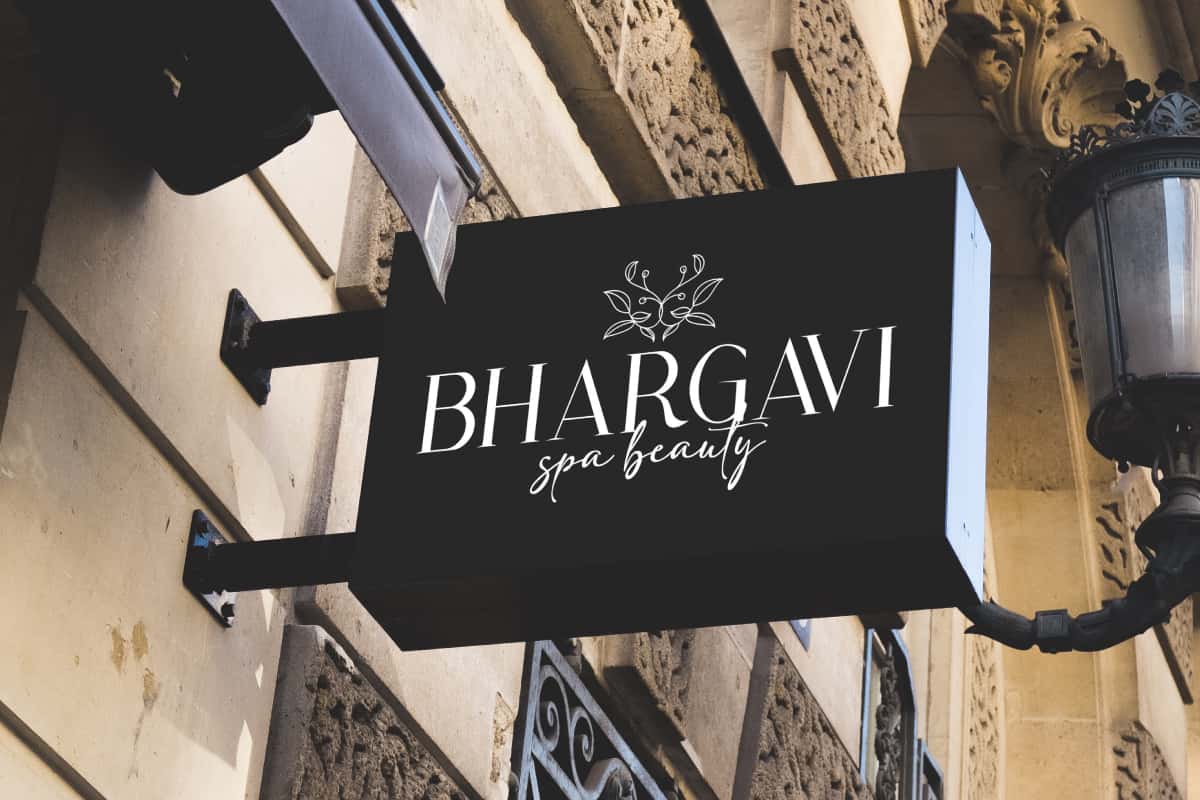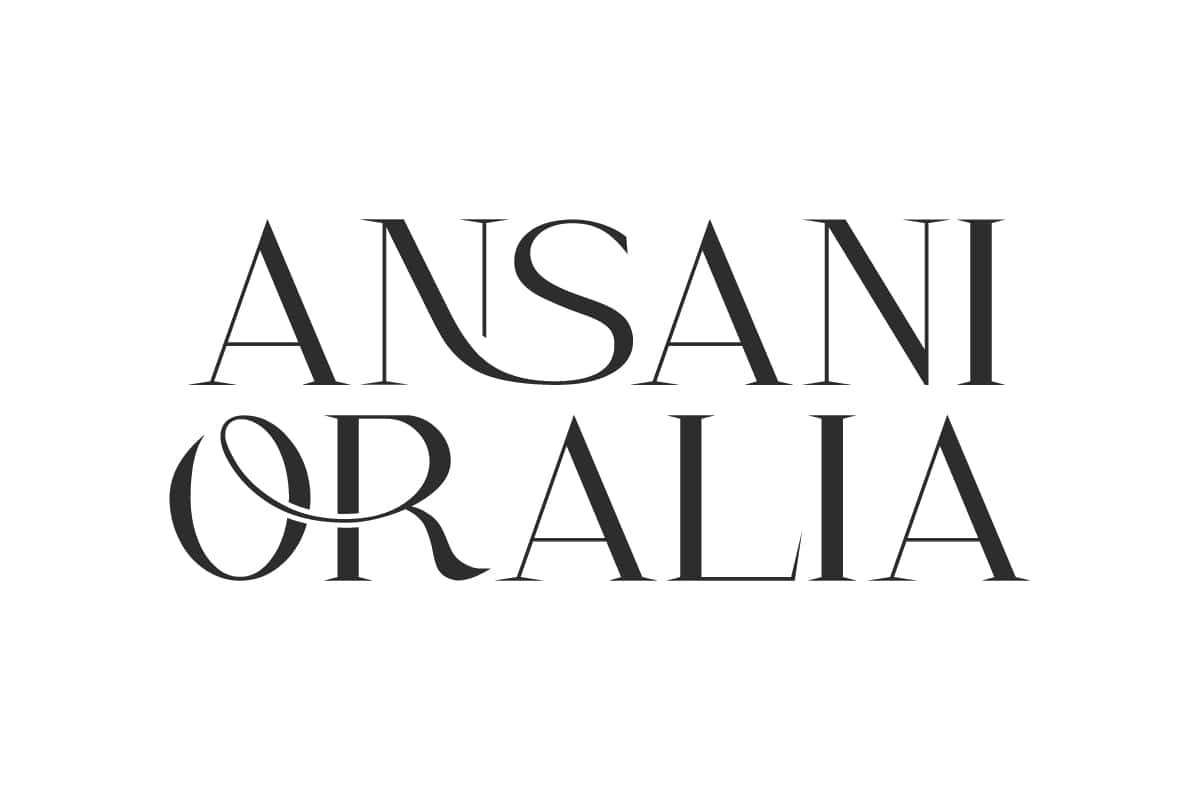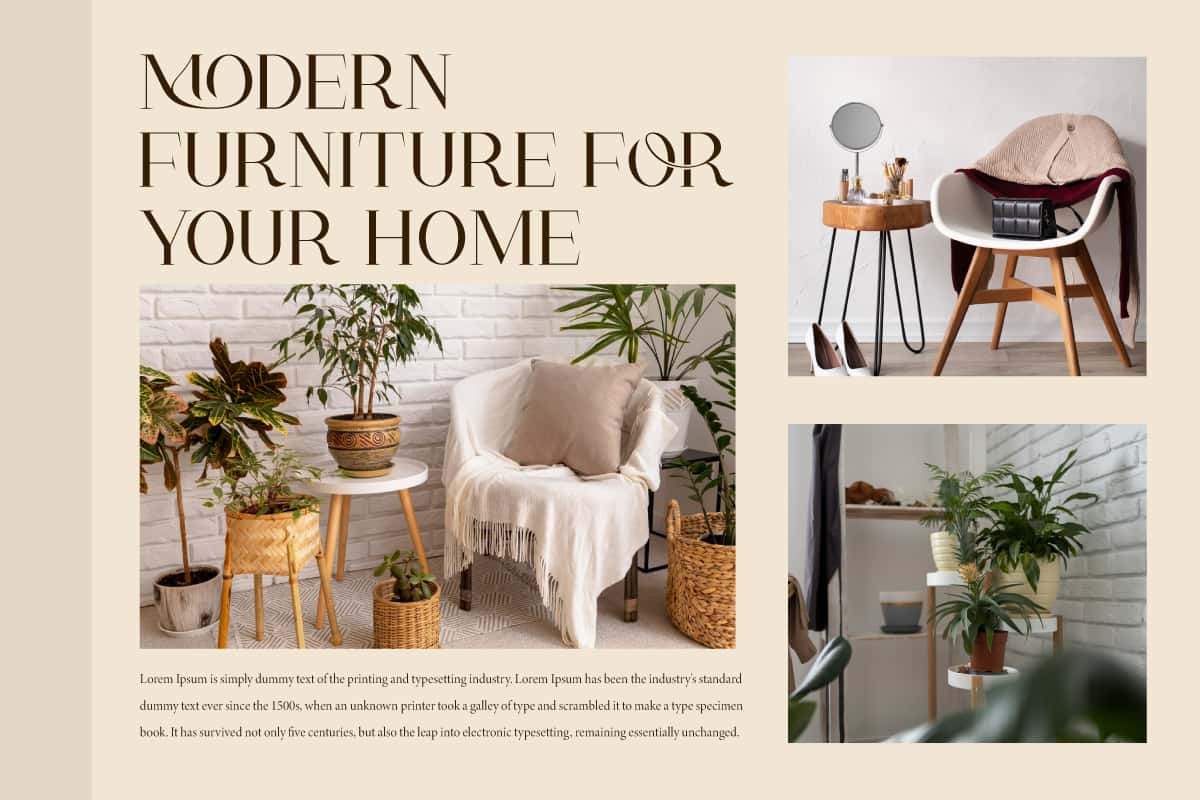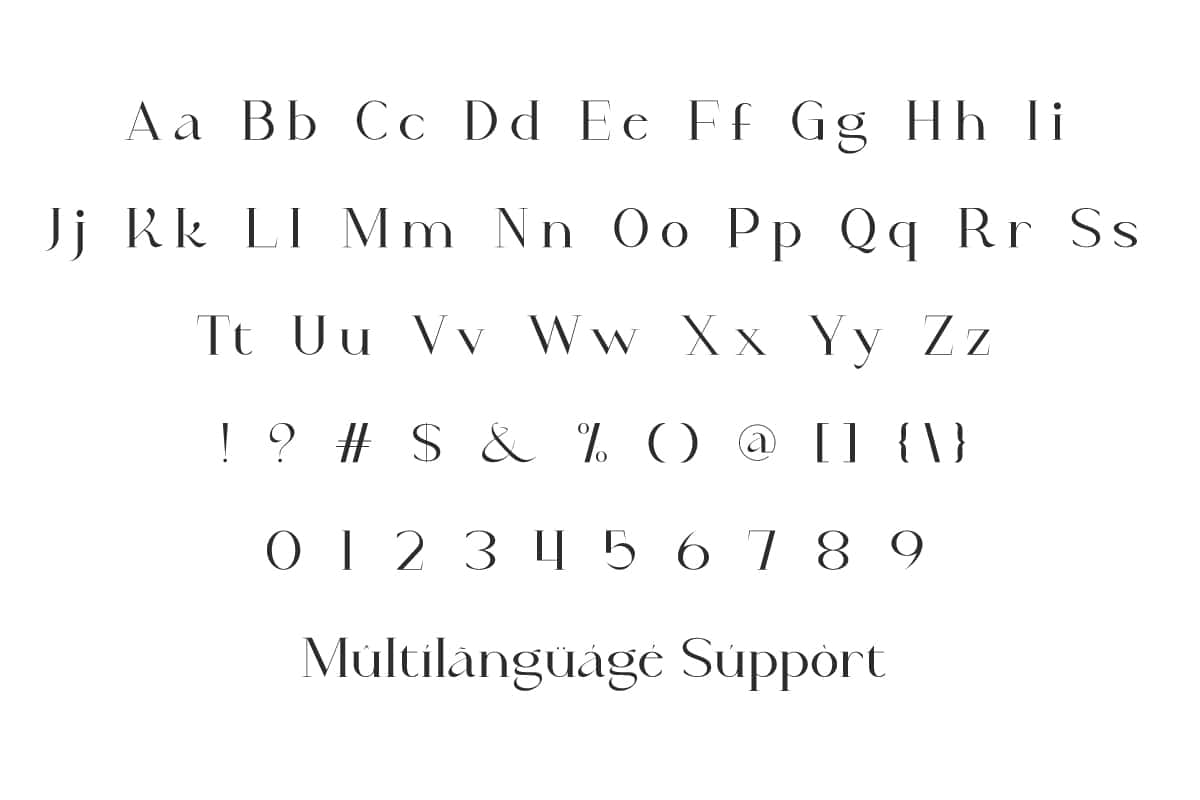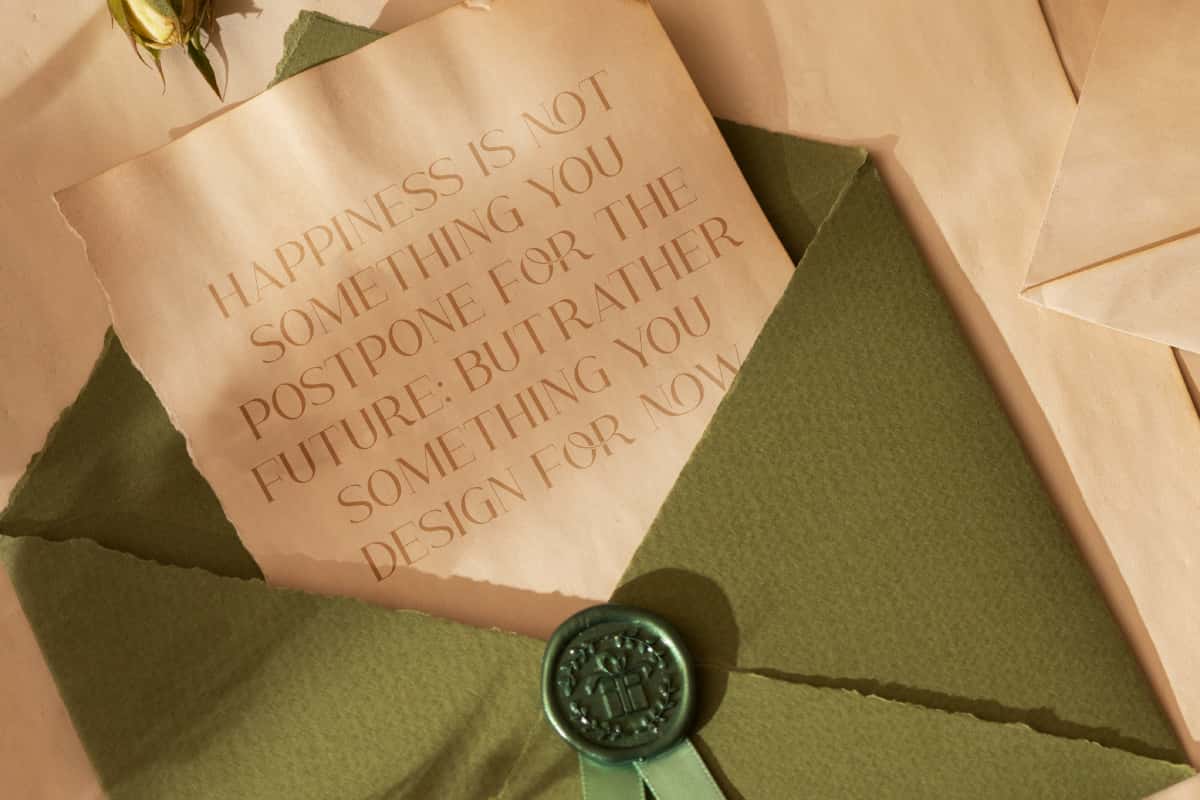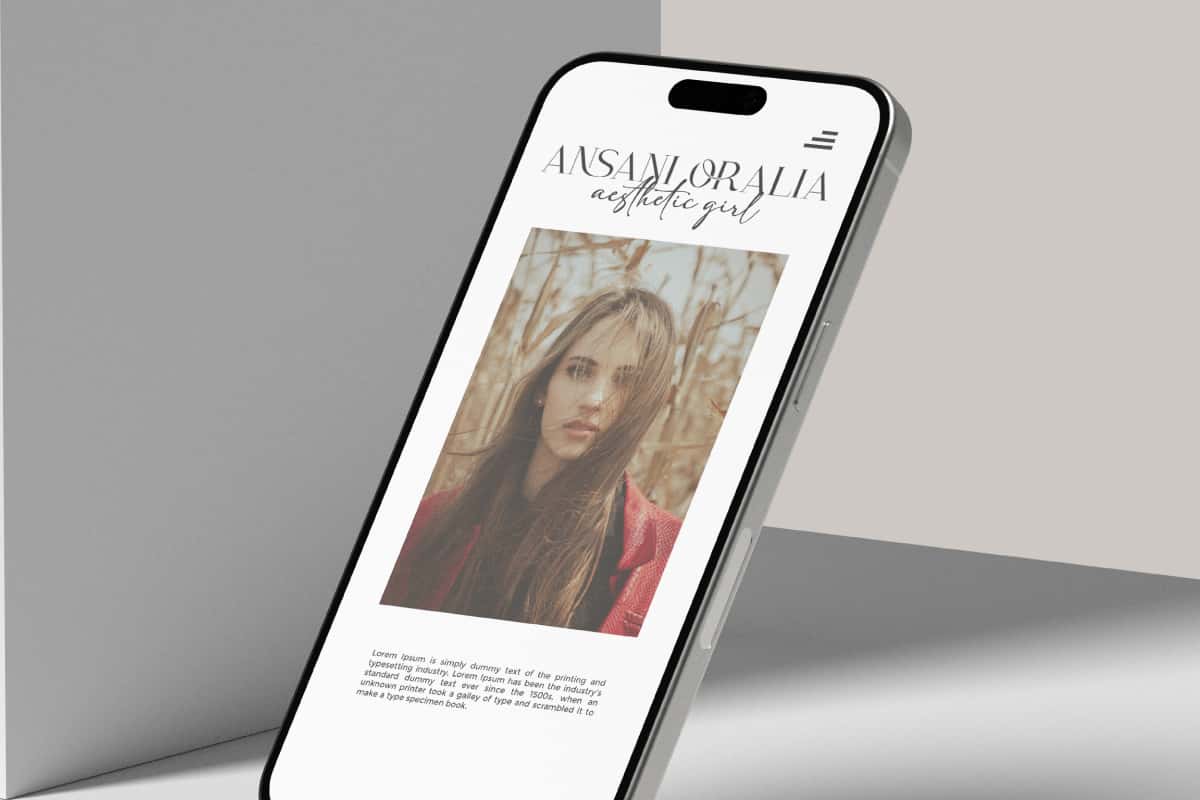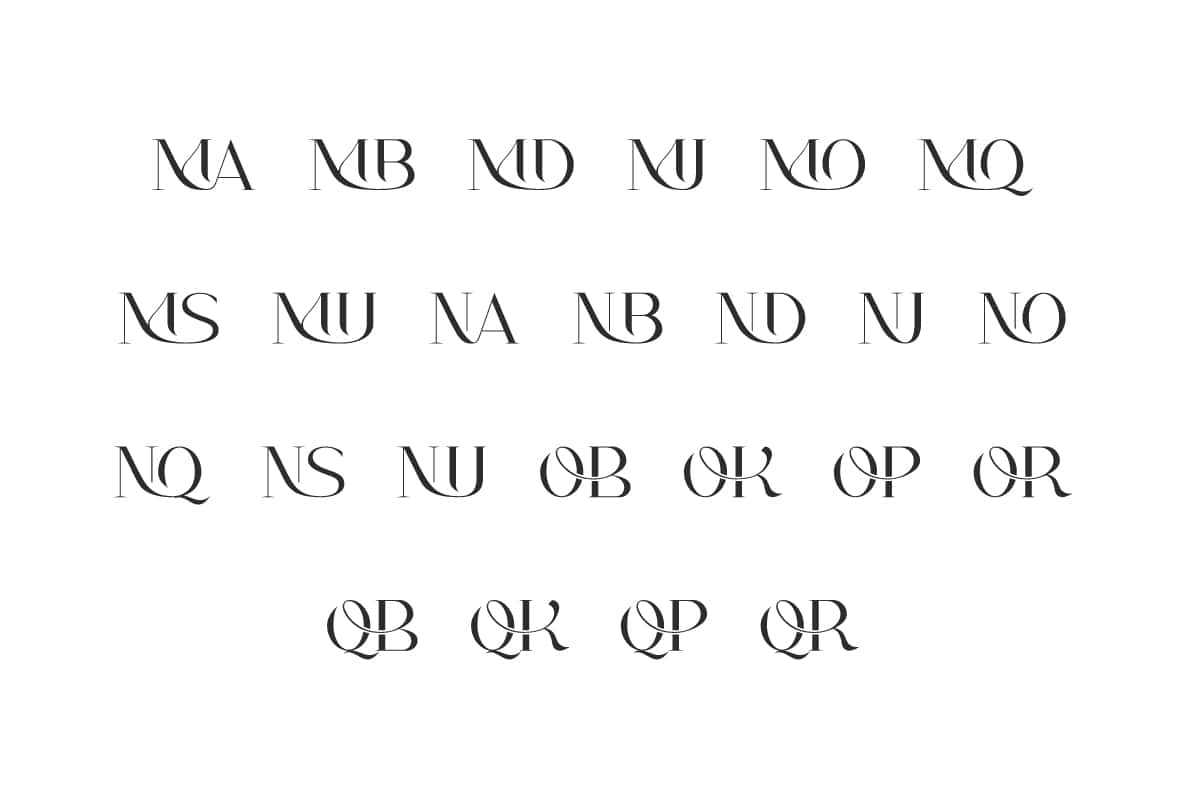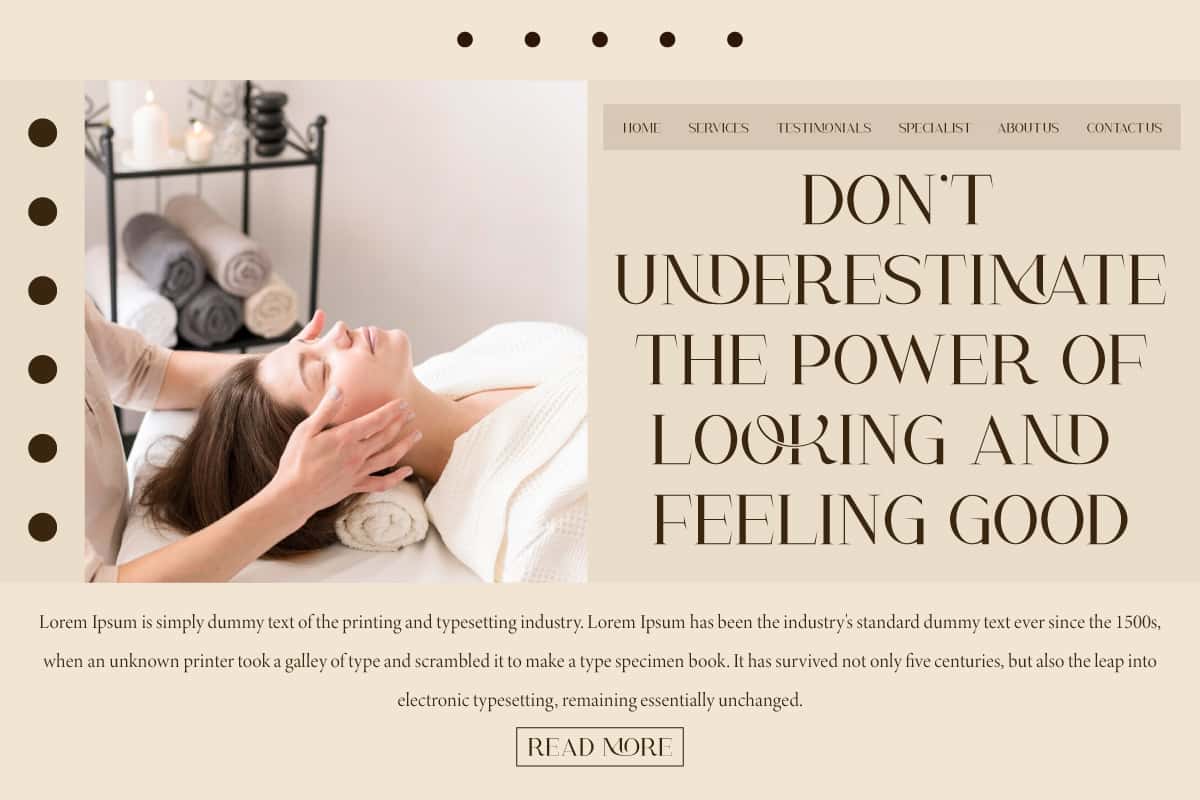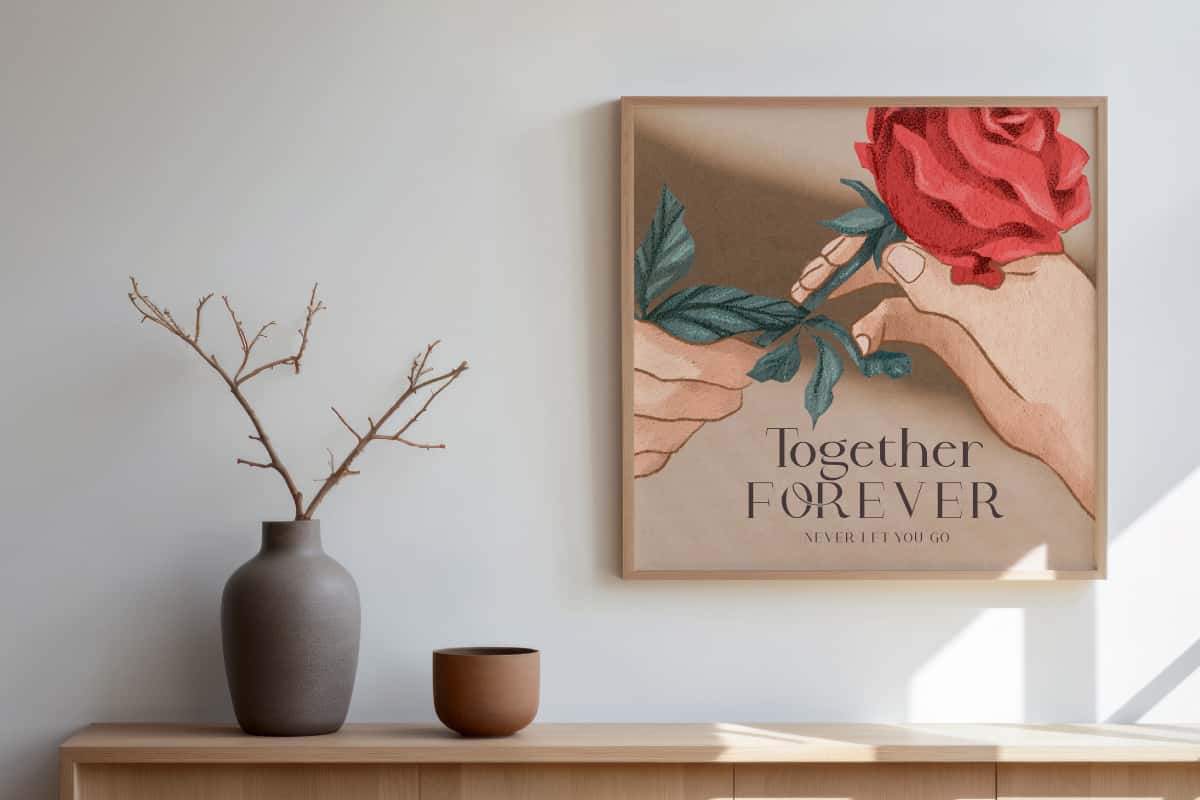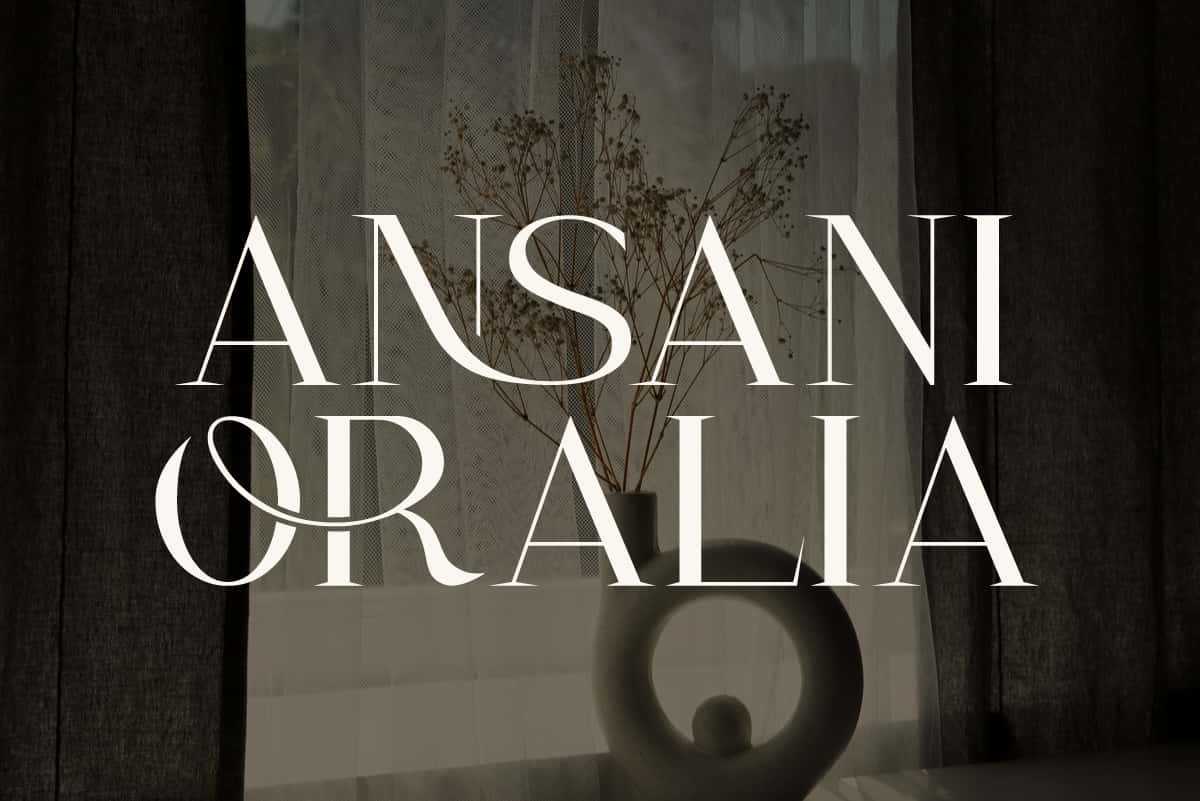
Ansani Oralia Font is an elegant serif font that beautifully bridges eras. It harmoniously blends modern and vintage styles.
Ansani Oralia Font is an elegant serif font that seamlessly blends a unique modern style with a distinct vintage aesthetic. This type of font is very suitable for various needs, such as apps, business cards, covers, labels, mockup, notes, product packaging, quotes, signage, template, title, website, and many more.
Ansani Oralia Font includes full set of Uppercase and Lowercase Basic Characters, Numbers, Punctuation, Symbols and Ligatures. Made with high readability in a classy style. Create stunning masterpieces with this font! Suitable for accessories and gift, advertisements, apparel, beauty product, fashion, graphic design, handicraft, lodging, makeup brands, photography, publisher, spa salon, etc.